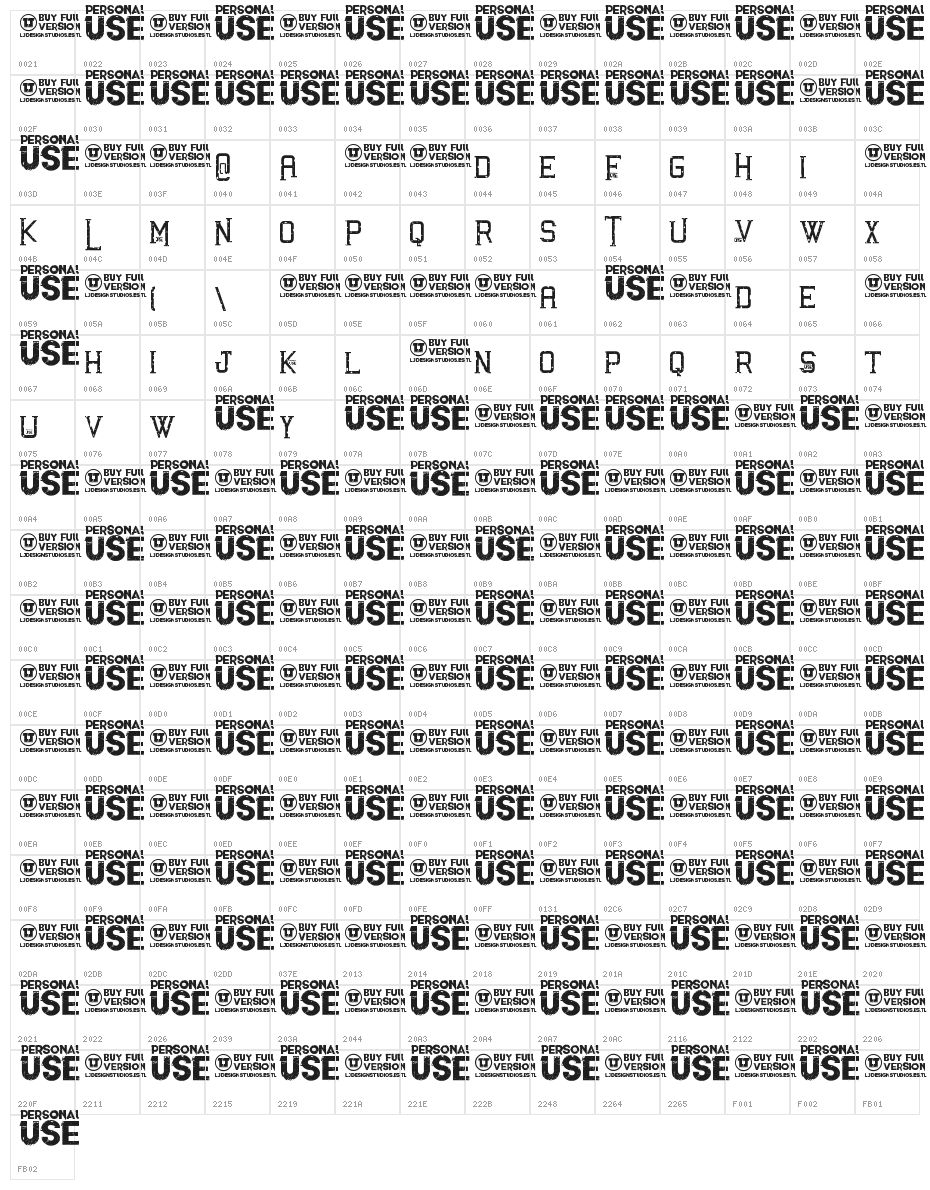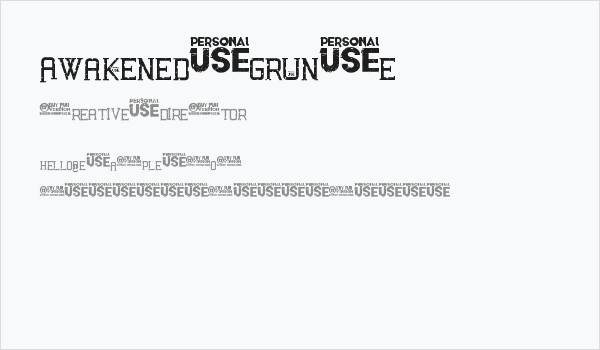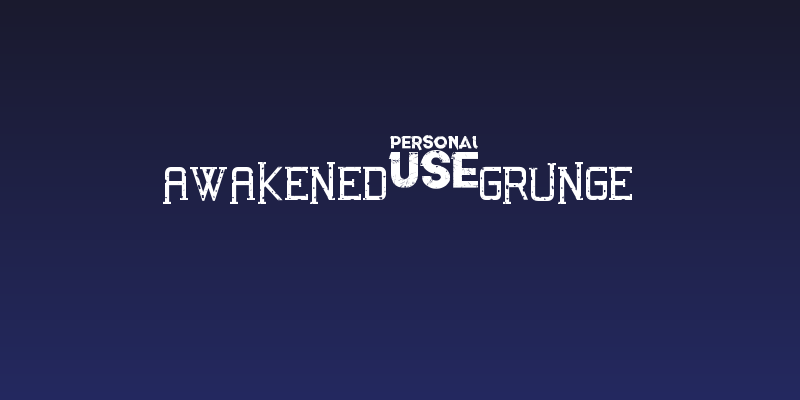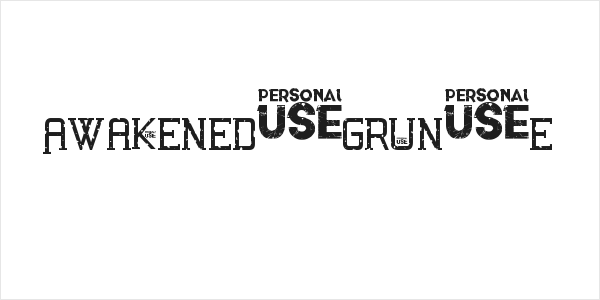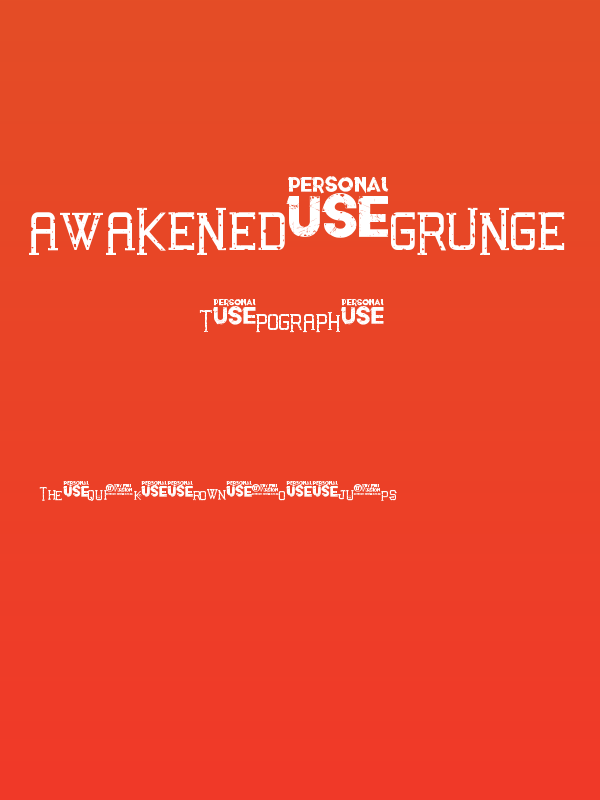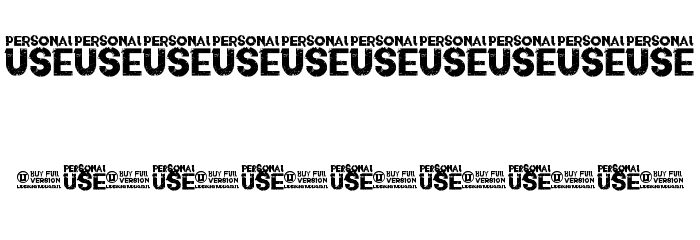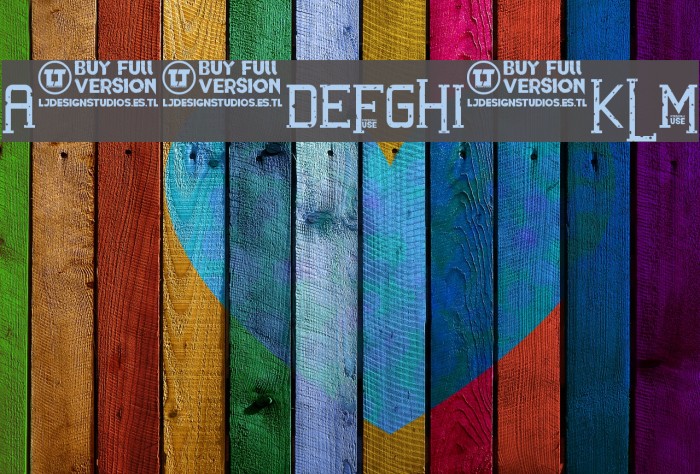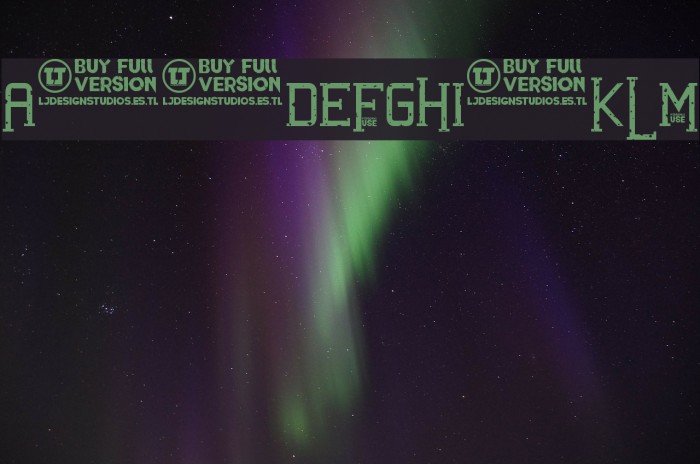
Awakened Grunge Font
Awakened Grunge Description
This font features a distressed, grunge aesthetic with a rough, textured appearance. The characters are bold and impactful, with irregular edges and a worn-out look that gives them a vintage, rebellious feel. The uppercase letters are prominent, while the lowercase letters maintain the same rugged style. The numerals and special characters follow the same design, ensuring consistency across all elements. This font is ideal for projects that require a bold statement or an edgy, urban vibe.
AWAKENED-GRUNGE UPPERCASE
AWAKENED-GRUNGE LOWERCASE
AWAKENED-GRUNGE OTHER CHARS
| Overall Style | Grunge, Vintage |
| Proposed Projects | Ideal for music album covers, posters, streetwear branding, and any design requiring a bold, edgy look. |